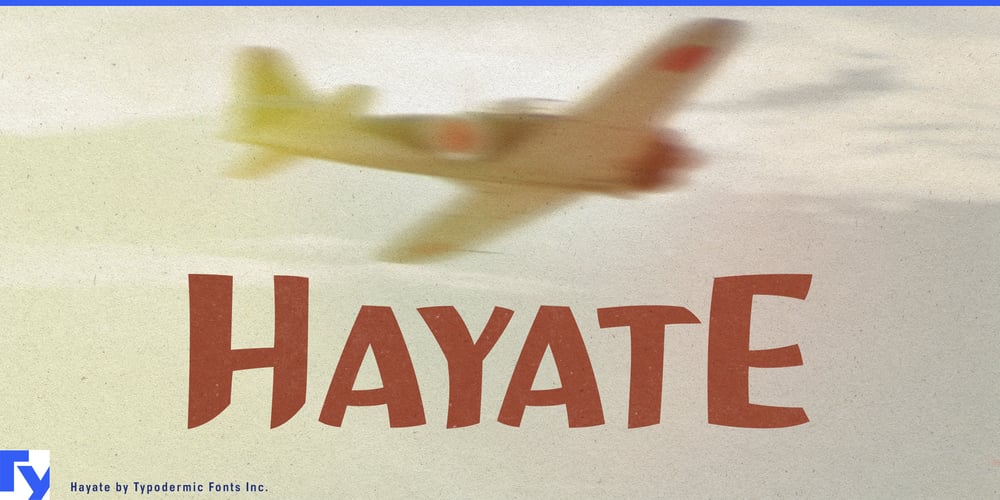
Hayate Font Family was designed by Ray Larabie and published by Typodermic. Hayate contains 1 styles and family package options. Hayate emerges from the typographic landscape like a grove of bamboo after a storm—resilient, distinctive, and undeniably evocative. This small-cap typeface, with its rugged charm, stands as a testament to the complex interplay between cultural aesthetics and design sensibilities.Inspired by the strength and texture of sliced bamboo, Hayate’s characters possess a raw, organic quality. Each glyph seems carved from nature itself, bearing the marks of both artisanal craft and the weathering of time. It’s a font that doesn’t whisper—it speaks with the authority of ancient wisdom, yet carries the edge of modern design sensibilities. Hayate’s DNA is a fascinating blend of influences. At its core lies a deep reverence for Japanese artistry, but it’s interwoven with echoes of 20th-century American interpretations of Asian aesthetics. This fusion creates a typeface that’s at once familiar and exotic, nostalgic and fresh. It’s the typographic equivalent of a jazz improvisation on a traditional shamisen melody—unexpected, yet strangely harmonious.However, wielding Hayate requires a deft hand and a mindful approach. Its potent visual language, steeped in cultural allusions, demands careful consideration. In the wrong context, it risks perpetuating stereotypes or trivializing rich cultural heritage. But in the hands of a thoughtful designer, Hayate becomes a powerful tool for cross-cultural dialogue and artistic expression. The versatility of Hayate extends beyond its visual impact. This typeface is a linguistic polyglot, fluent in a vast array of Latin-based European languages and even versed in some Cyrillic scripts. From the fjords of Norway to the steppes of Russia, Hayate can convey your message with its distinctive voice. Choosing Hayate for your project is more than a design decision—it’s a statement. It speaks of resilience, of cultural exchange, and of the complex tapestry of global aesthetics. Use it to craft headlines that command attention, to create logos that tell stories of tradition and innovation, or to set text that invites readers on a journey across cultural boundaries.Hayate stands ready to lend its unique voice to your designs. But remember, with great power comes great responsibility. Approach this typeface with respect for its cultural roots, and it will reward you with designs that are not just visually striking, but also rich in meaning and cultural resonance. In the end, Hayate is more than just a font—it’s an invitation to engage in thoughtful, impactful design that bridges worlds and challenges perceptions.